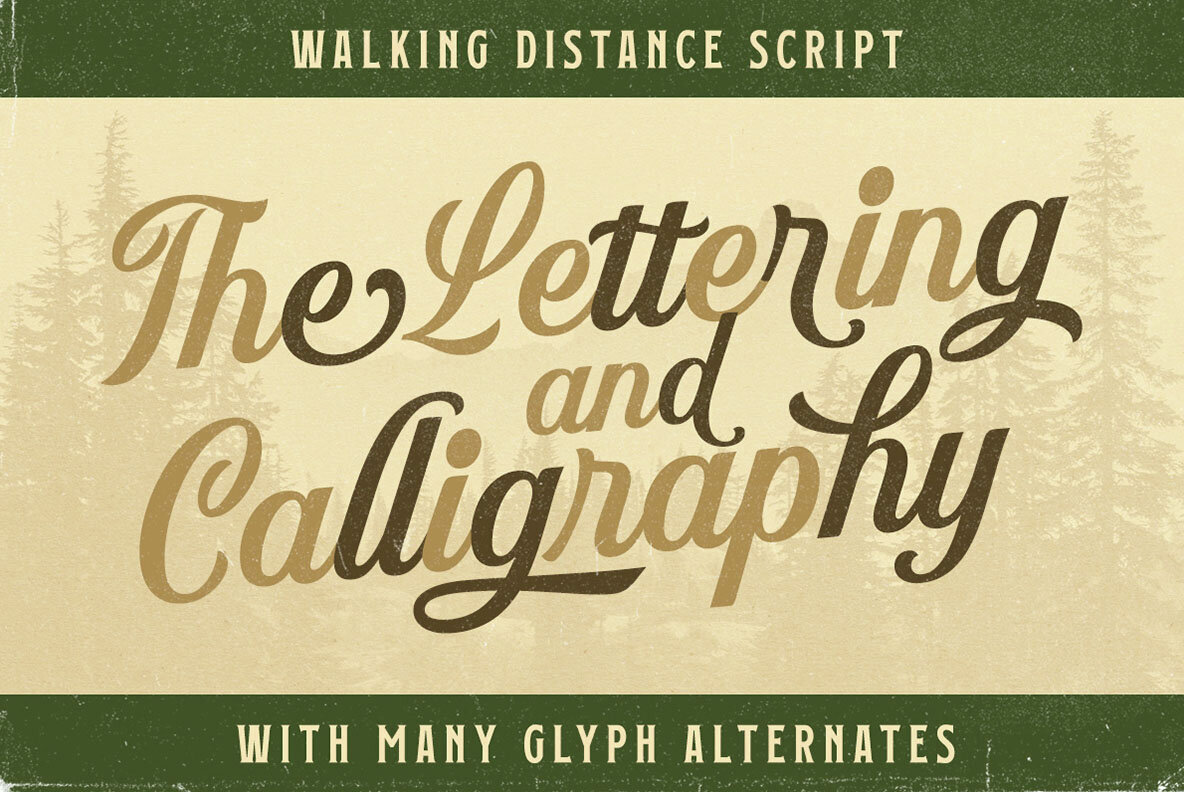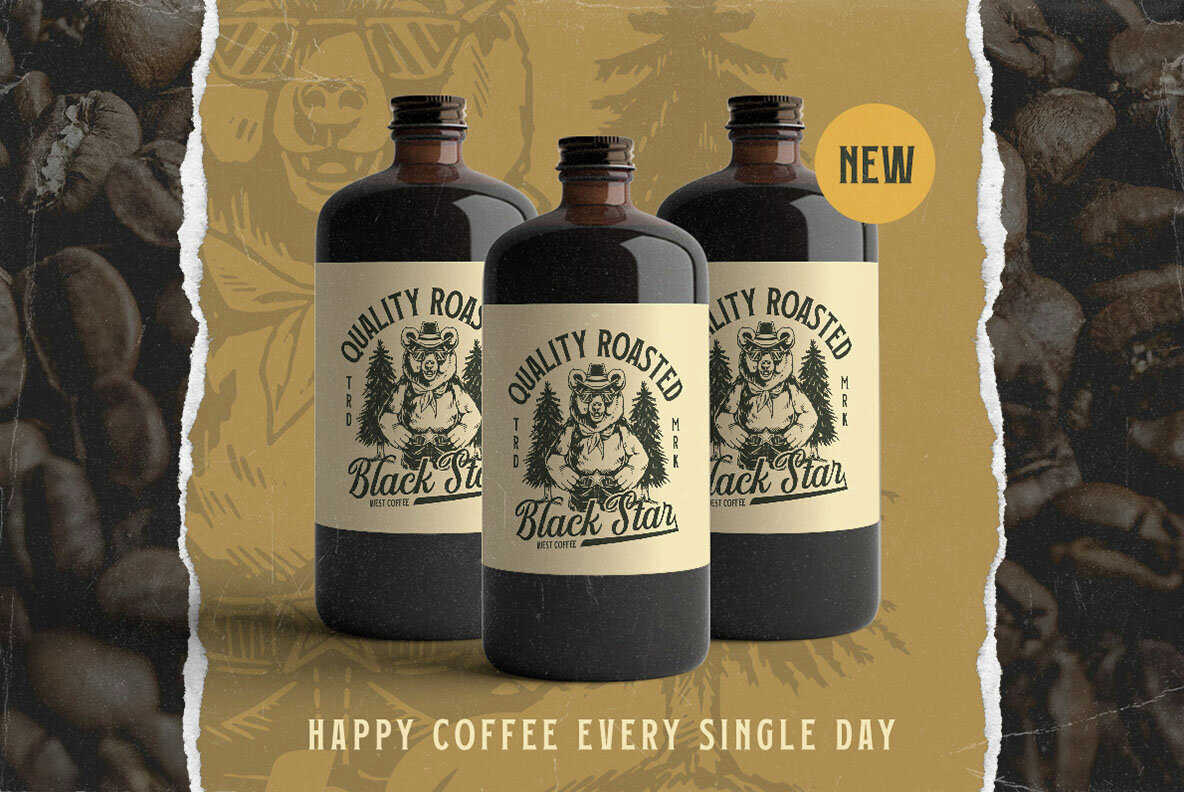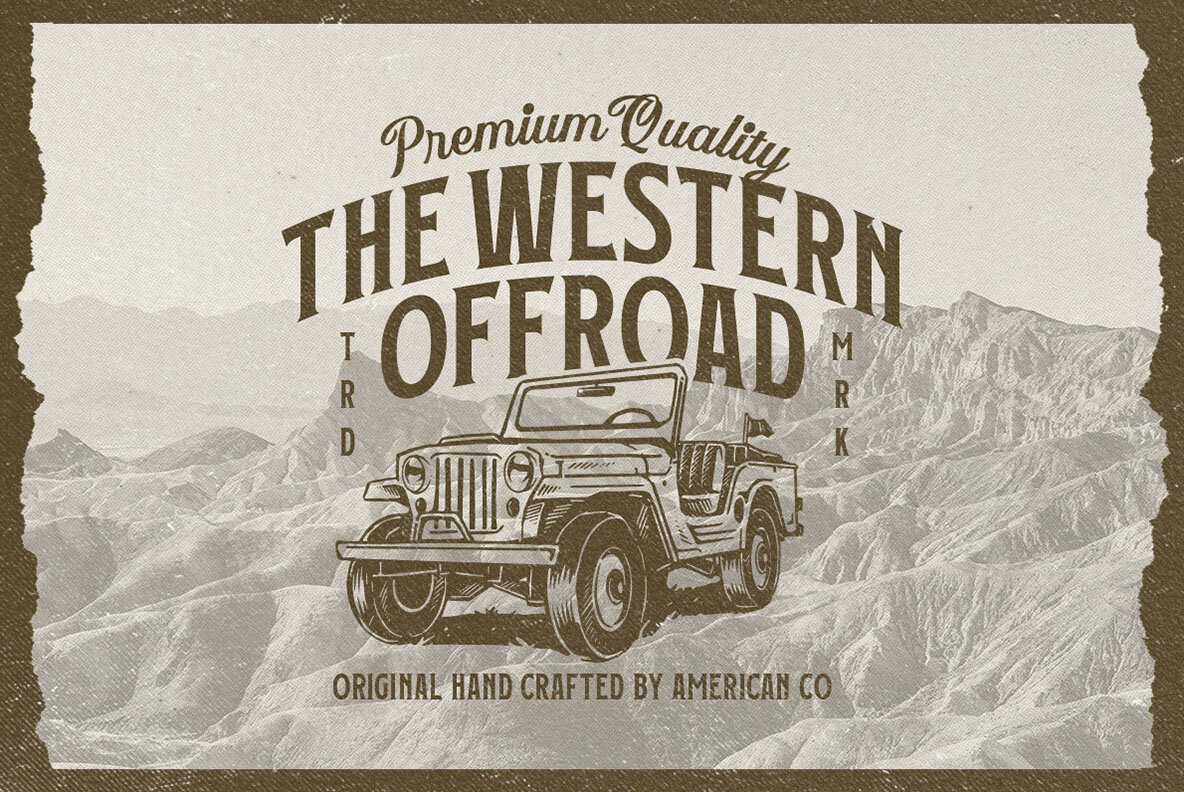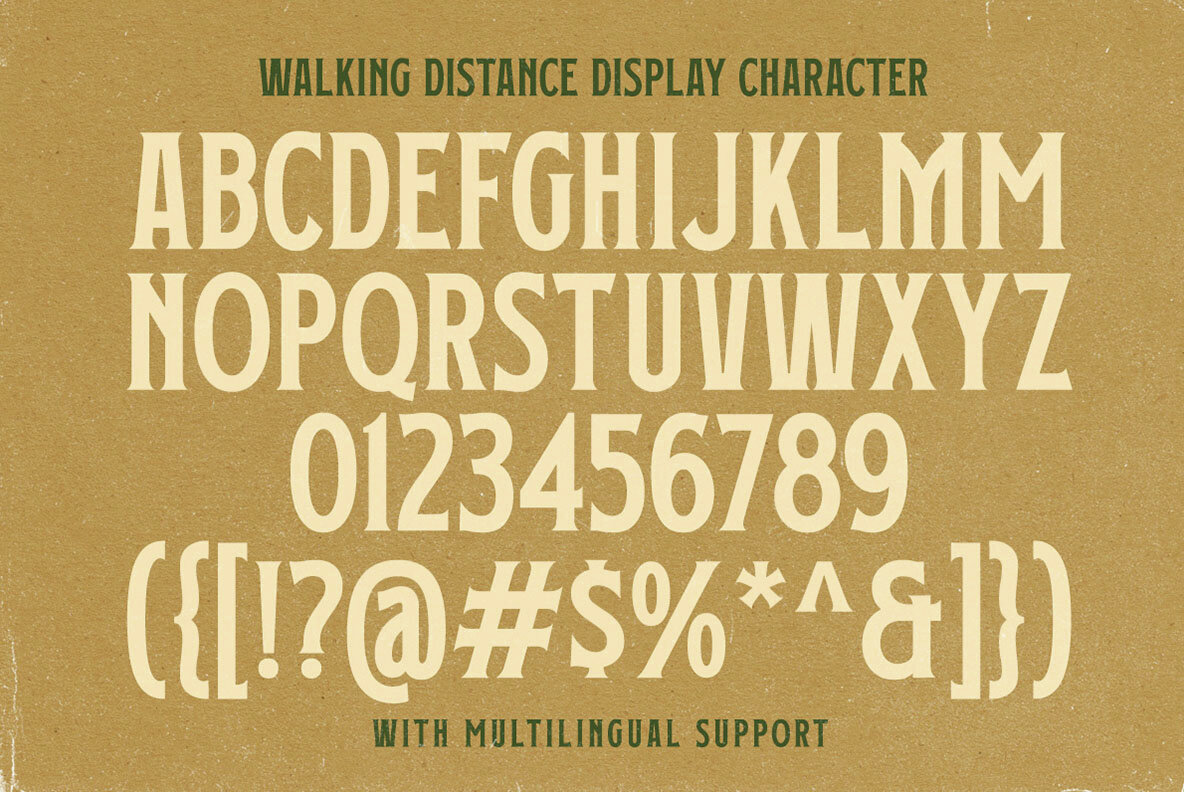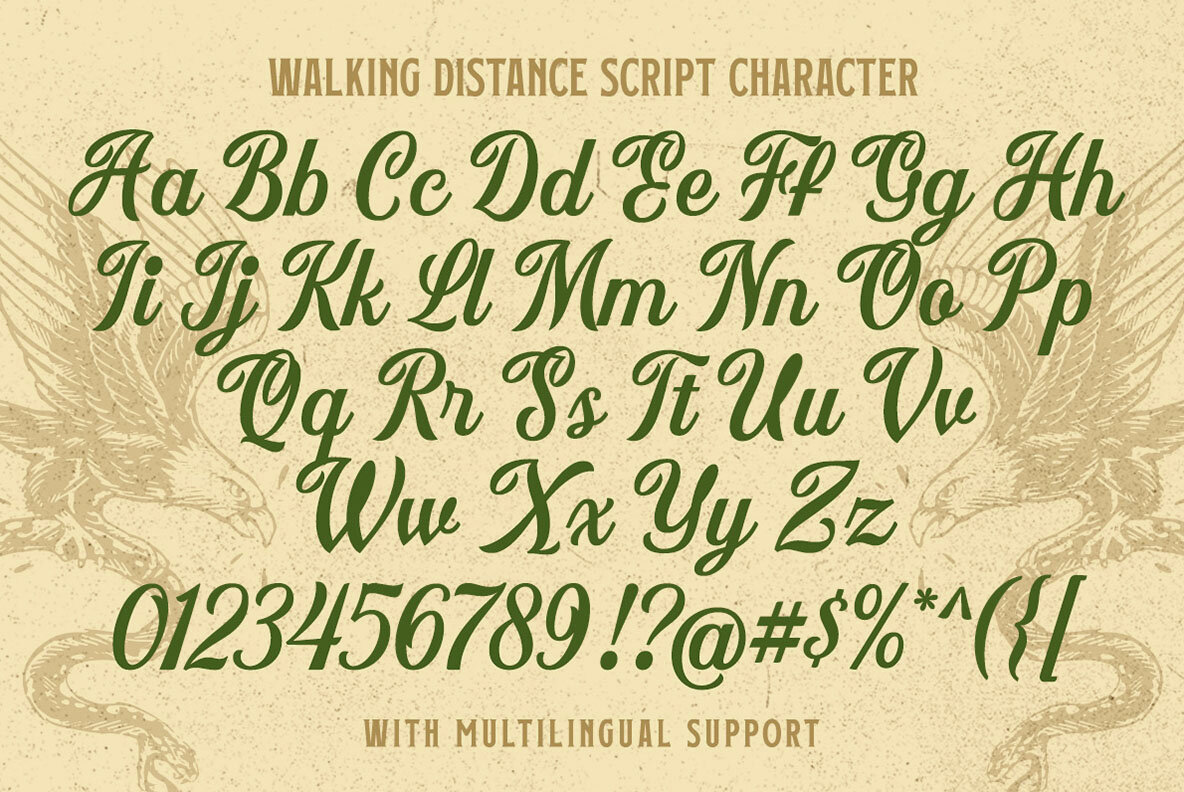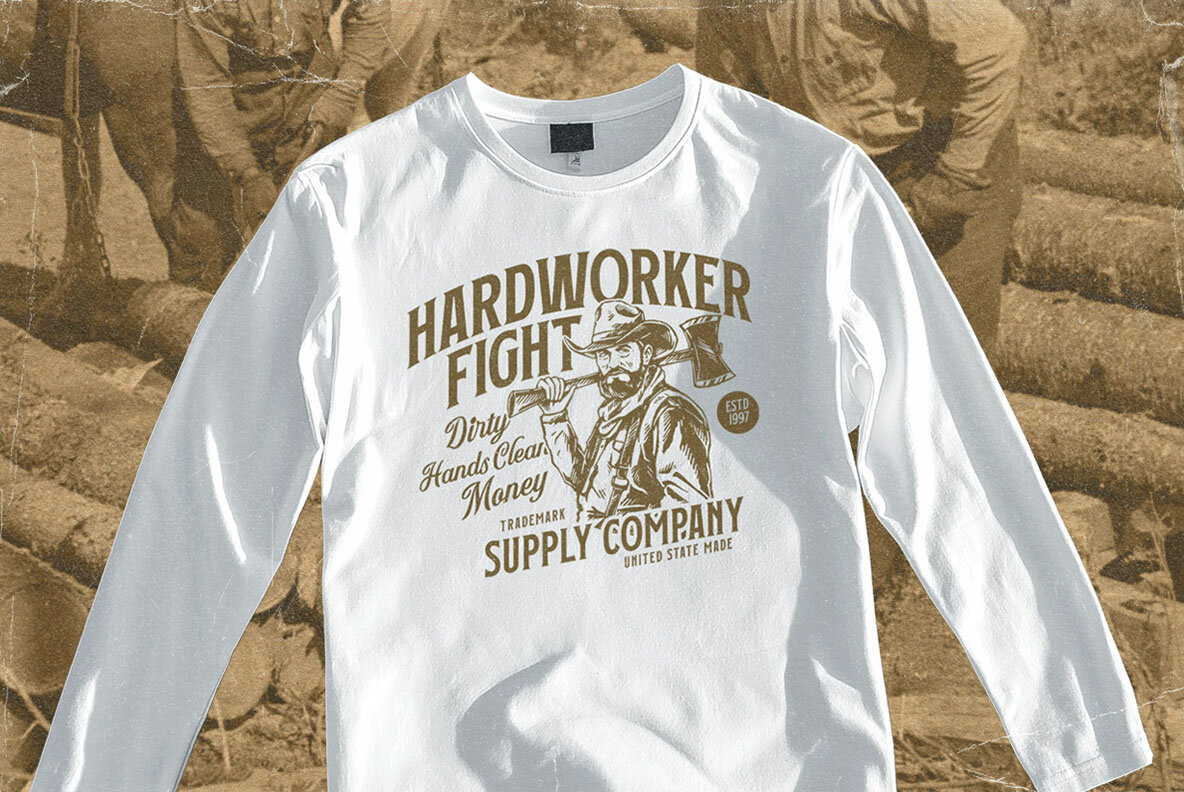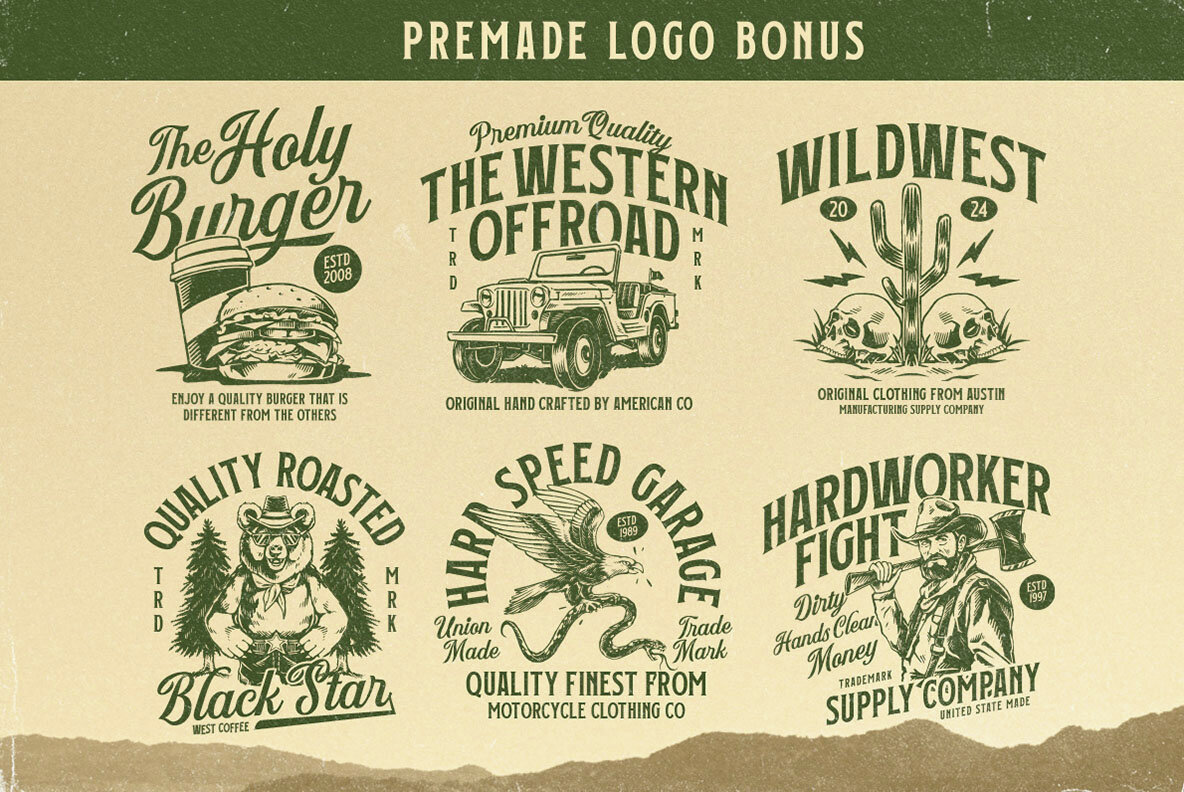
Walking Distance Font
Walking Distance – Vintage Font Duo is a serif font that comes with script, both will match perfectly. The vintage feel is really perfect for you who needs a typeface for especially logotype, apparel, branding, packaging, advertising etc. This typeface is comes in uppercase, lowercase, punctuations, symbols & numerals, a bunch of alternate, ligatures, etc also support multilingual and already PUA encoded. Also with stamp version that will make the fonts more vintage! FeaturesL